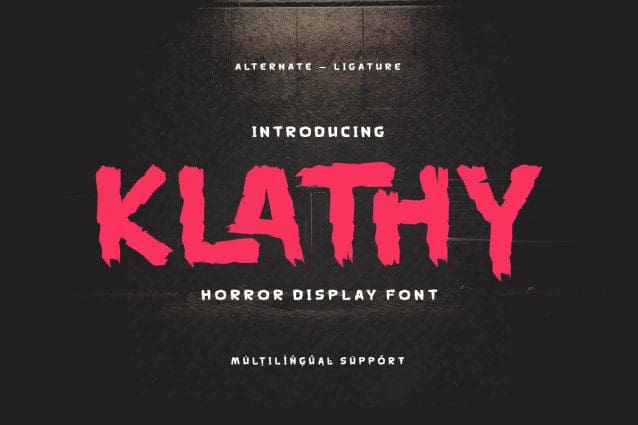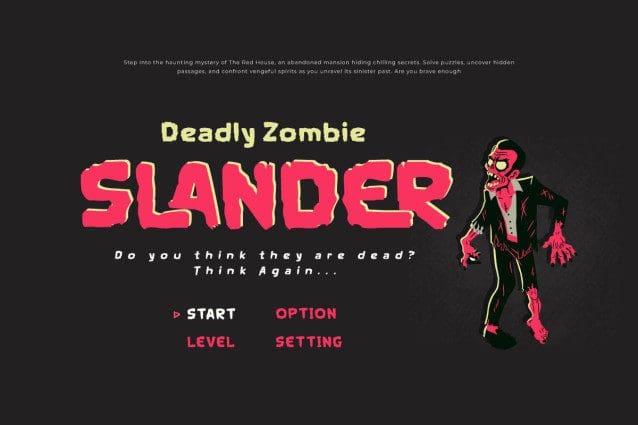
Klathy Display Font
Klathy Display Font a horror display font that’s sure to make a statement. Its jagged, irregular letterforms evoke a sense of fear and unease, making it the perfect choice for horror movie posters, book covers, and Halloween-themed designs. With Klathy, you can create designs that are not only visually striking, but also create an atmosphere of suspense and intrigue.